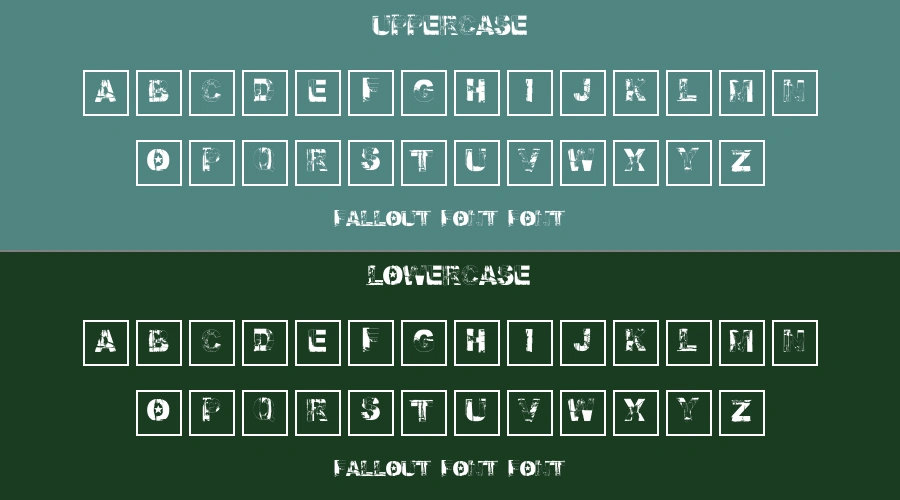
About Fallout Font Font
Fallout Font Font embodies typographic excellence through its masterful combination of harmonic curves and refinement. Created for branding projects, this typeface delivers exceptional authenticity and uniqueness across all applications. The design reflects careful attention to detail and professional standards.
Advanced capabilities include distinctive balanced weights and versatile kerning pairs, giving designers creative control. When used in technical diagrams, Fallout Font Font exhibits remarkable special character access. The harmonious balance between spine curvature and design lineage sets this typeface apart.